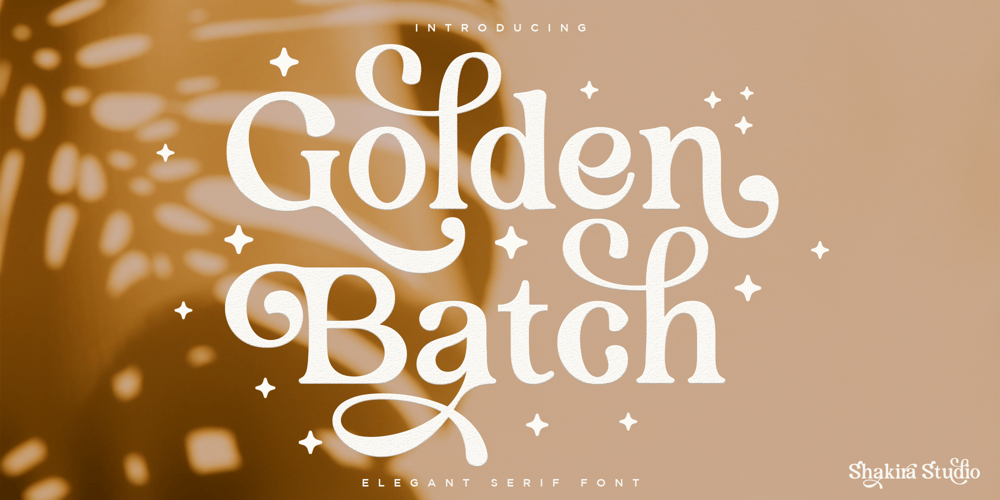
Golden Batch Font Family was designed by Idhham Cholid Rikzano Yahya and published by Shakira Studio. Golden Batch contains 1 styles and family package options. Golden Batch – Modern Serif FontIs a modern serif font it’s a cool modern take on a retro classic, and it’s ready to make a lasting impression on your merchandise, quote designs, header text, logos & branding, advertisements and much more. It’s packed with plenty of alternates and ligatures to really bring it to life, and give you a wide range of customisation options.What you get Golden Batch Regular Letters, numbers, punctuation, multilingual support, alternate and ligature HOW TO ACCESS ALTERNATE CHARACTERSOpen glyphs panel:In Adobe Photoshop go to Window – glyphsIn Adobe Illustrator go to Window – Type – glyphsI really hope you’ll get pleasure using Golden Batch font and it will be perfect addition to your font collection! Contact me with an inbox message If you have any question.Thank you and enjoy!